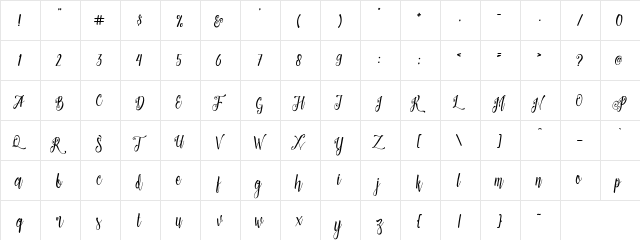
Patronia Script Regular
| Foundry | Twicolabs Fontdation |
| Designer | Twicolabs Fontdation |
Design Context for Patronia Script Typeface
Patronia Script flows with the natural rhythm of handwritten lettering, making it ideal for designs that call for warmth and personal expression.
Font Pairing: Combine Patronia Script with a simple geometric sans for maximum contrast — the tension between flowing curves and clean structure is a classic typographic pairing.
Pro Tip: Use Patronia Script for short runs of text — names, titles, or taglines. Extended body copy in script faces tires the eye quickly.